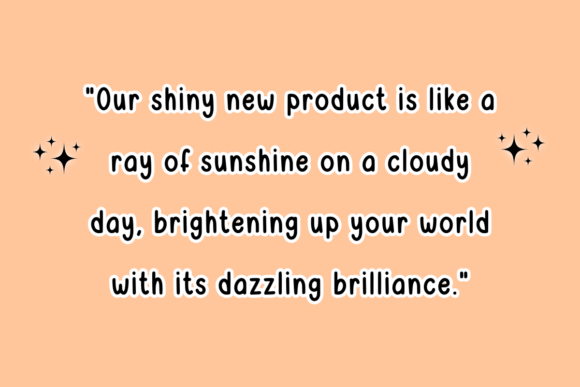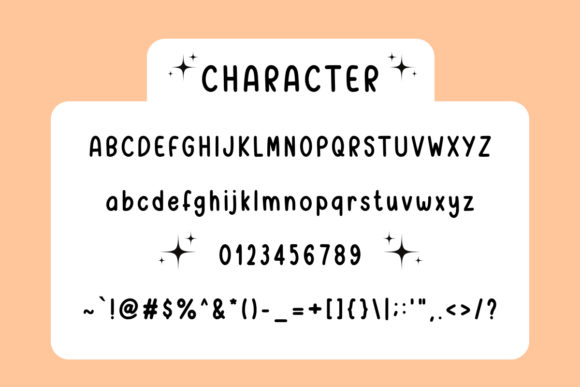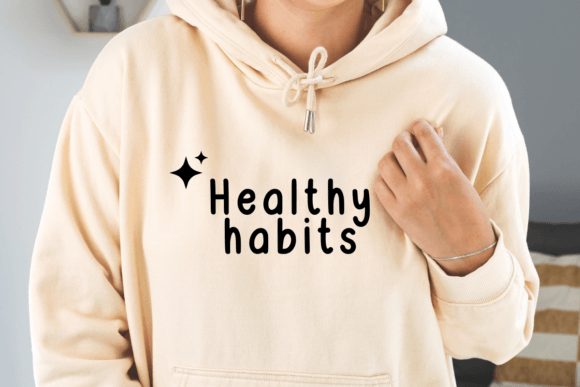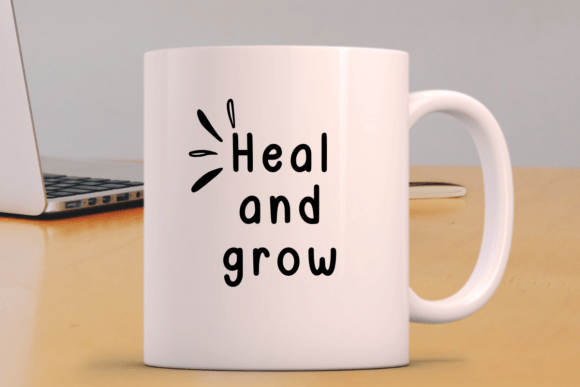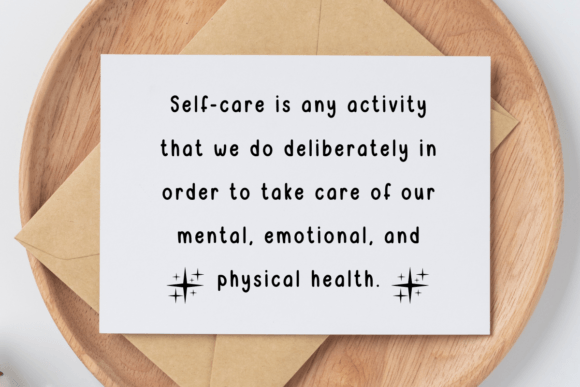
Introducing Gilded Romance Font: Elevate Your Creativity with Elegance
Are you on the lookout for a font that adds a touch of charm and personality to your projects? Look no further than the Gilded Romance Font, a delightfully charming handwritten sans serif font that is sure to capture your heart. This adorable typeface is perfect for a variety of applications, from jazzing up your memos and enhancing your journal entries to adding a personal touch to your notes and planners.
The Perfect Match for KDP Interiors and More
Gilded Romance is an absolute match for KDP interiors and is sure to charm itself onto your cards, whether they’re for teachers or general greetings. Its unique style and elegance make it perfect for invitations, scrapbooks, and other paper-based creative projects. Whether you’re a designer, crafter, or simply someone who loves to add a personal touch to their work, Gilded Romance is the perfect choice.
Unleash Your Creativity with Gilded Romance
This lovely font is not just limited to KDP interiors and cards. It’s exceptionally versatile and can be used for a wide range of projects, including:
- Journal templates: Add a touch of elegance to your journal pages with Gilded Romance.
- Note-taking essentials: Use Gilded Romance for notepads, calendars, paper sheets, and more.
- Daily, weekly, and monthly planners: Optimize your planners with the unique style of Gilded Romance.
- To-do lists: Enliven your to-do lists with a touch of charm and personality.
- Workbooks: Revamp your workbooks with the elegant style of Gilded Romance.
- Scrapbooks: Add a personal touch to your scrapbooks with this beautiful font.
- Invitations: Create stunning invitations for special occasions with Gilded Romance.
Why Choose Gilded Romance?
So, why choose Gilded Romance over other fonts? Here are just a few reasons:
- Unique style: Gilded Romance has a unique and elegant style that sets it apart from other fonts.
- Versatility: This font is exceptionally versatile and can be used for a wide range of projects.
- Easy to read: Despite its elegant style, Gilded Romance is easy to read, making it perfect for body text and headings.
- Handwritten charm: This font has a charming handwritten quality that adds a personal touch to any project.
Tips for Using Gilded Romance
Here are a few tips for using Gilded Romance in your projects:
- Mix and match: Experiment with different font sizes and styles to create visual interest.
- Add embellishments: Use Gilded Romance in combination with embellishments, such as stickers or washi tape, to add a personal touch.
- Use it sparingly: Use Gilded Romance sparingly to add emphasis or create a focal point.
In conclusion, Gilded Romance is a beautiful and versatile font that is perfect for designers, crafters, and anyone who loves to add a personal touch to their projects. Its unique style, elegance, and handwritten charm make it perfect for a wide range of applications, from KDP interiors and cards to journal templates and planners. So why not give Gilded Romance a try and see how it can elevate your creativity?
Whether you’re a seasoned designer or a crafty beginner, Gilded Romance is sure to inspire you to create something beautiful. So go ahead, get creative, and let Gilded Romance add a touch of elegance to your projects!